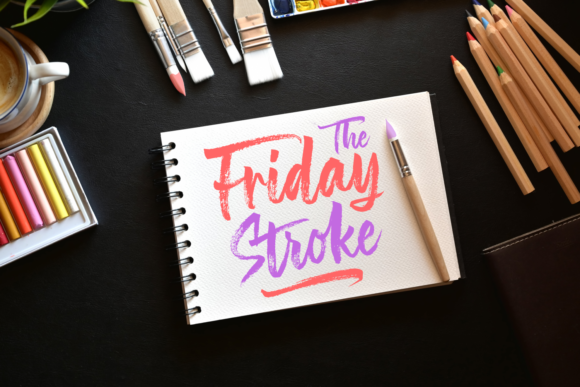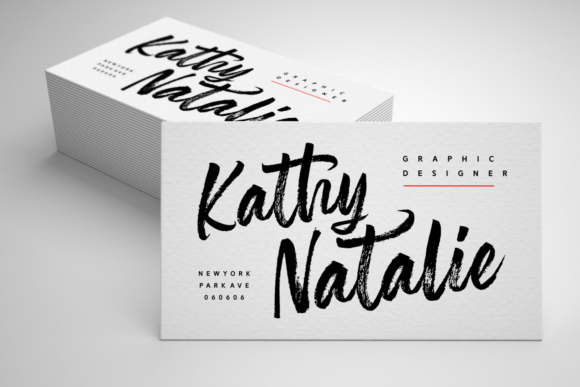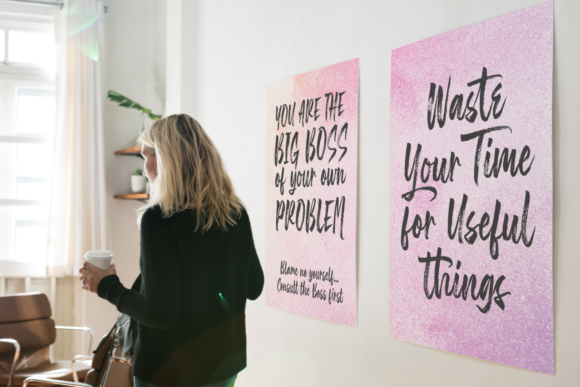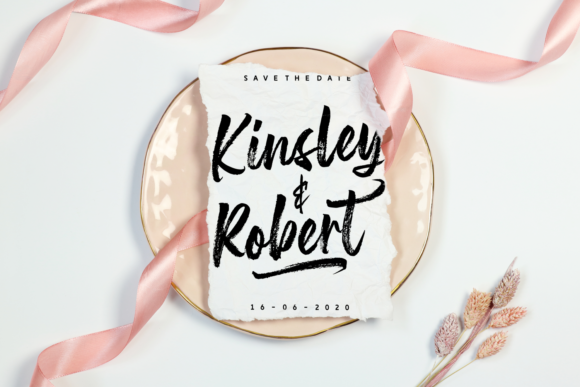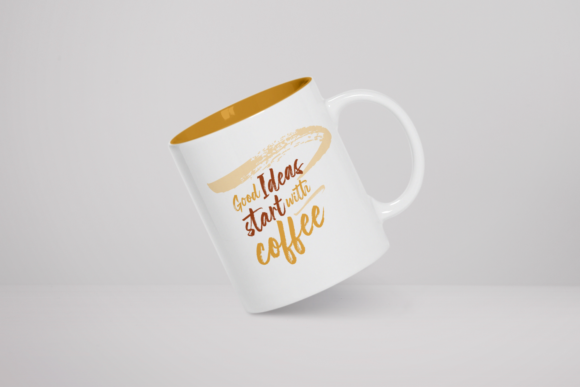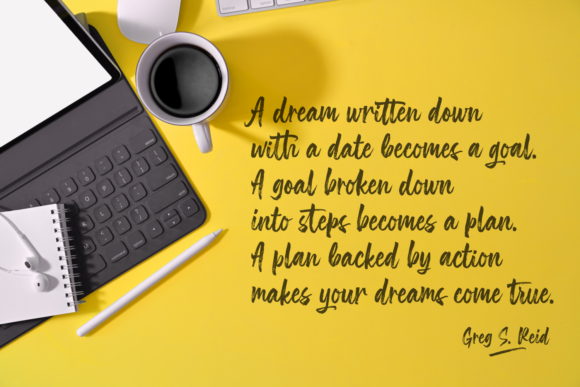
The Friday Stroke Font
About The Friday Stroke Font
The Friday Stroke is a cool and fun handwritten font with an authentic charm. It will turn any design project into a stand out!